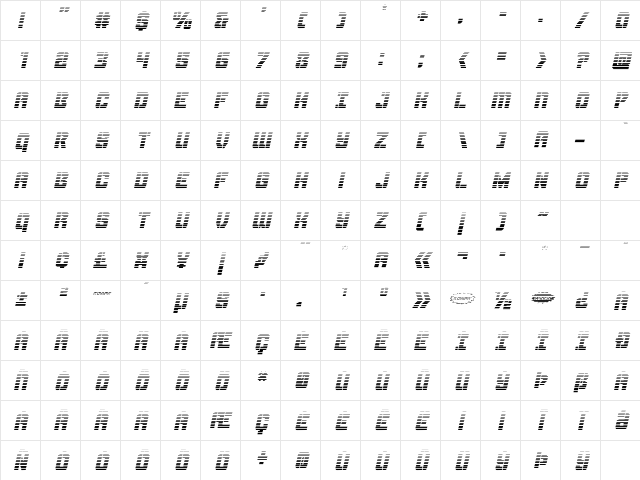
Thunder Trooper Gradient Italic
Thunder Trooper Gradient Family
Design Context for Thunder Trooper Gradient
Thunder Trooper Gradient is a composed and adaptable typeface that performs quietly and consistently across a wide range of design contexts. The slanted form adds forward momentum and visual energy.
Pro Tip: Use Thunder Trooper Gradient for emphasis, pull quotes, and subheadings where its slanted energy can add rhythm to the layout.